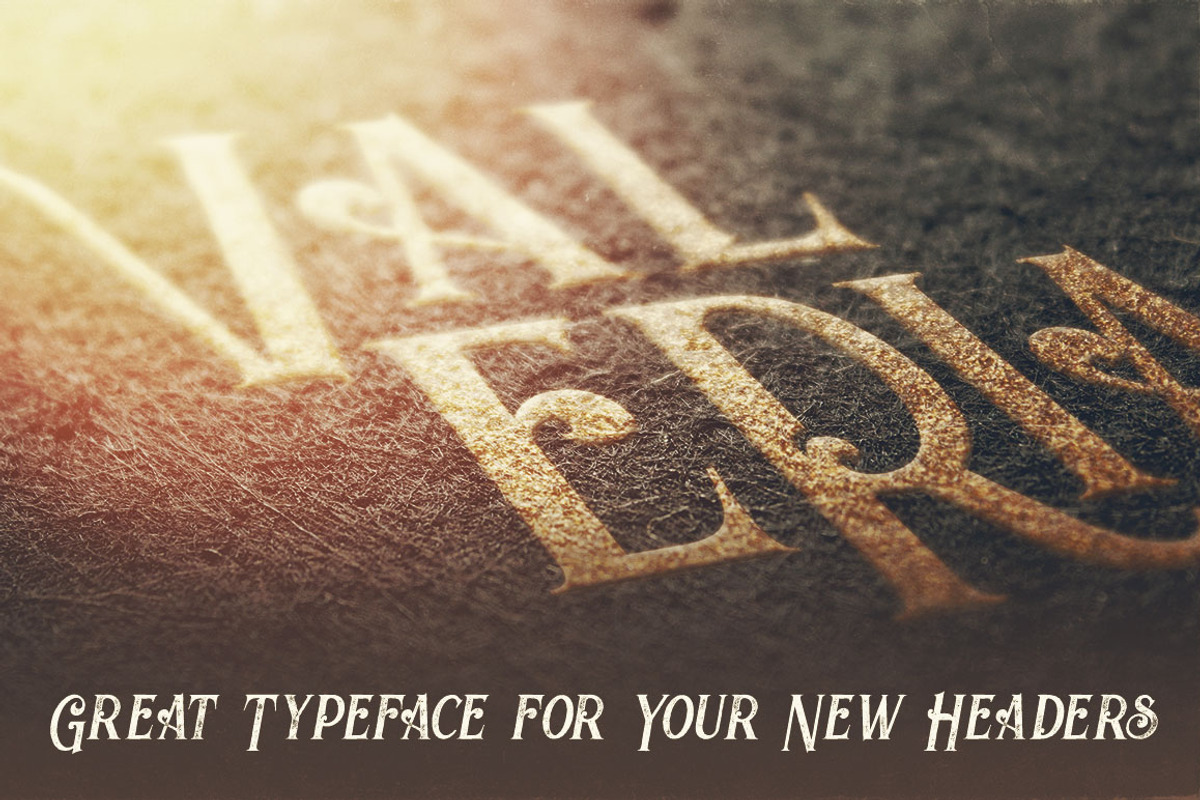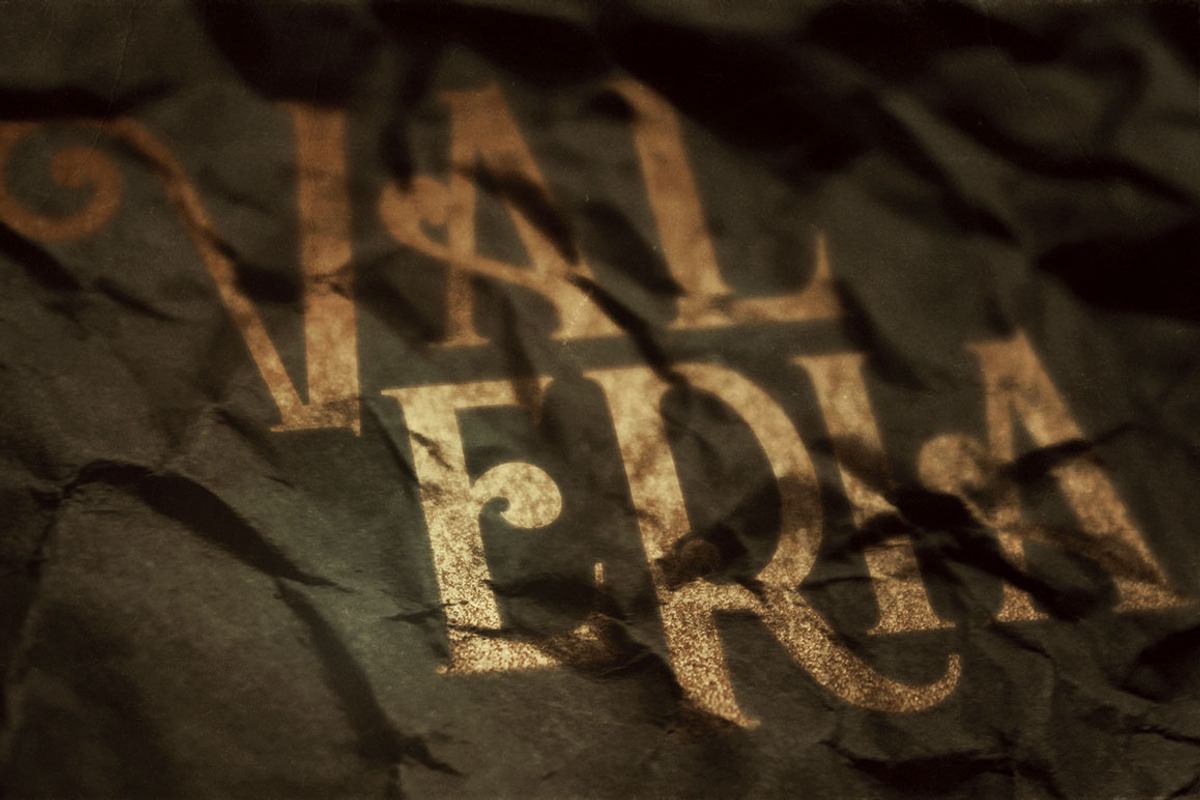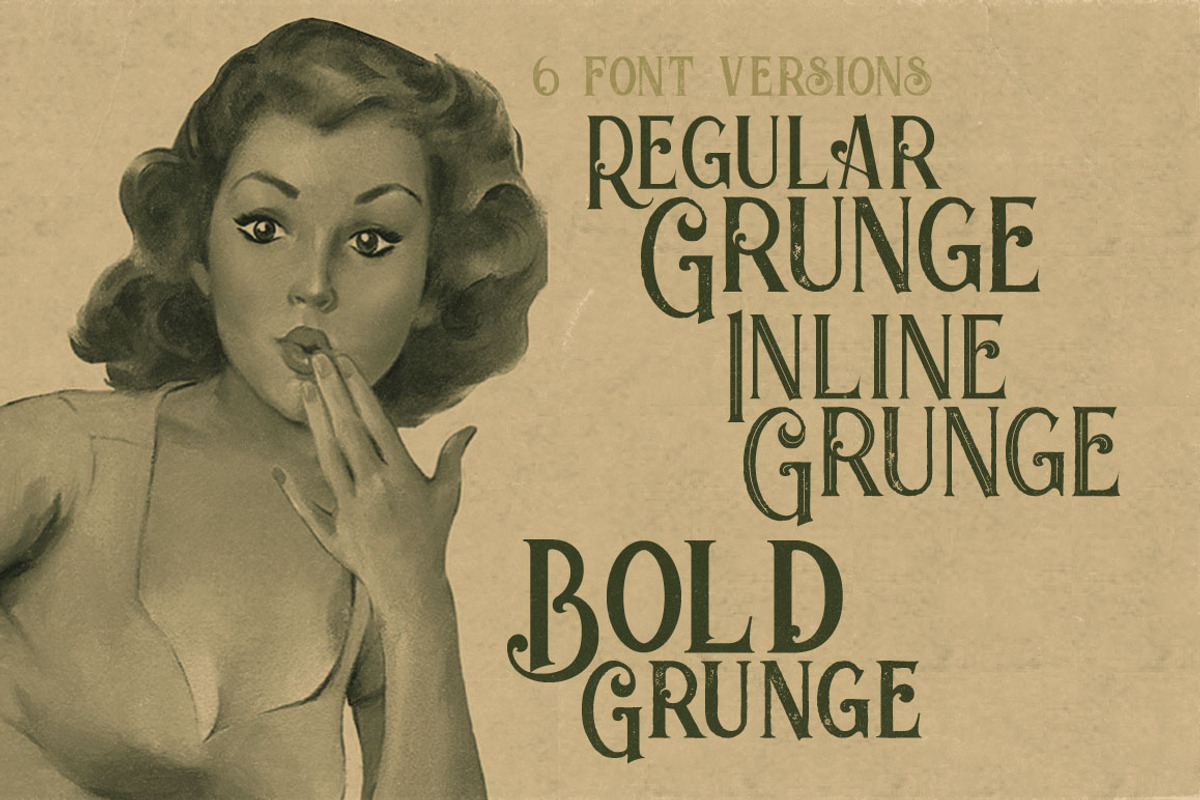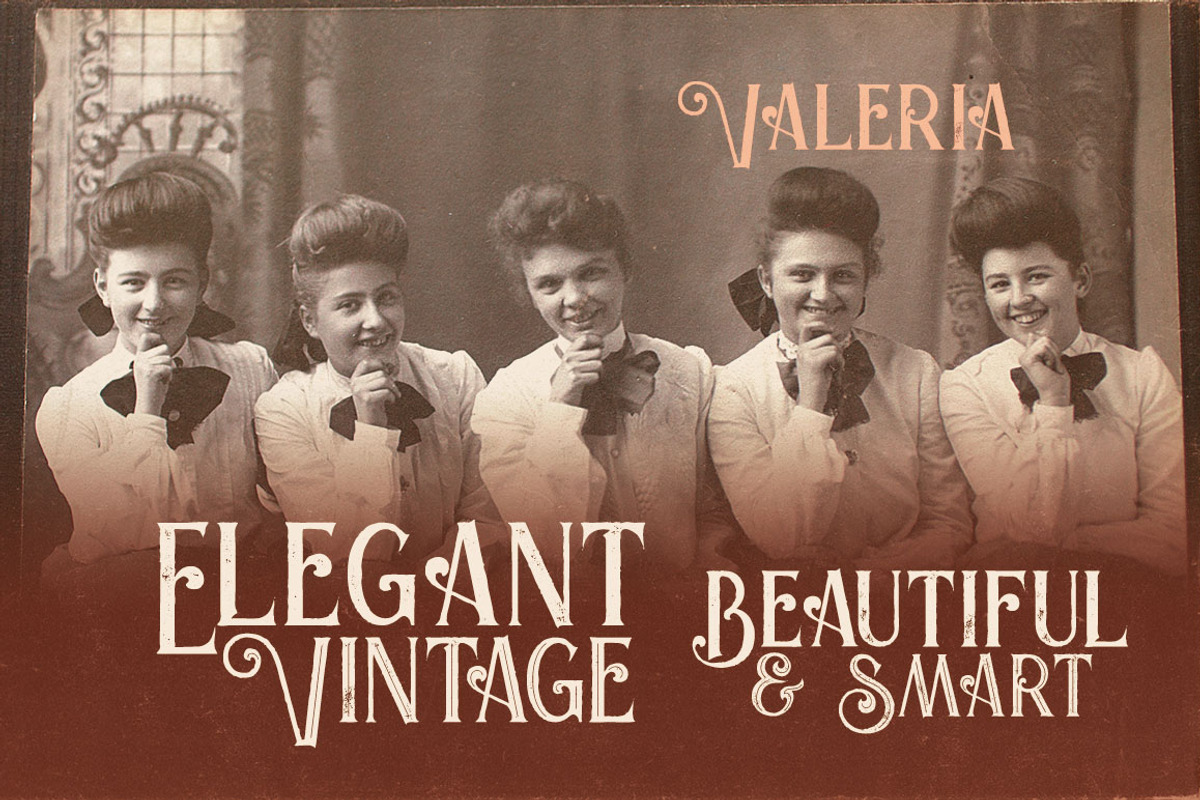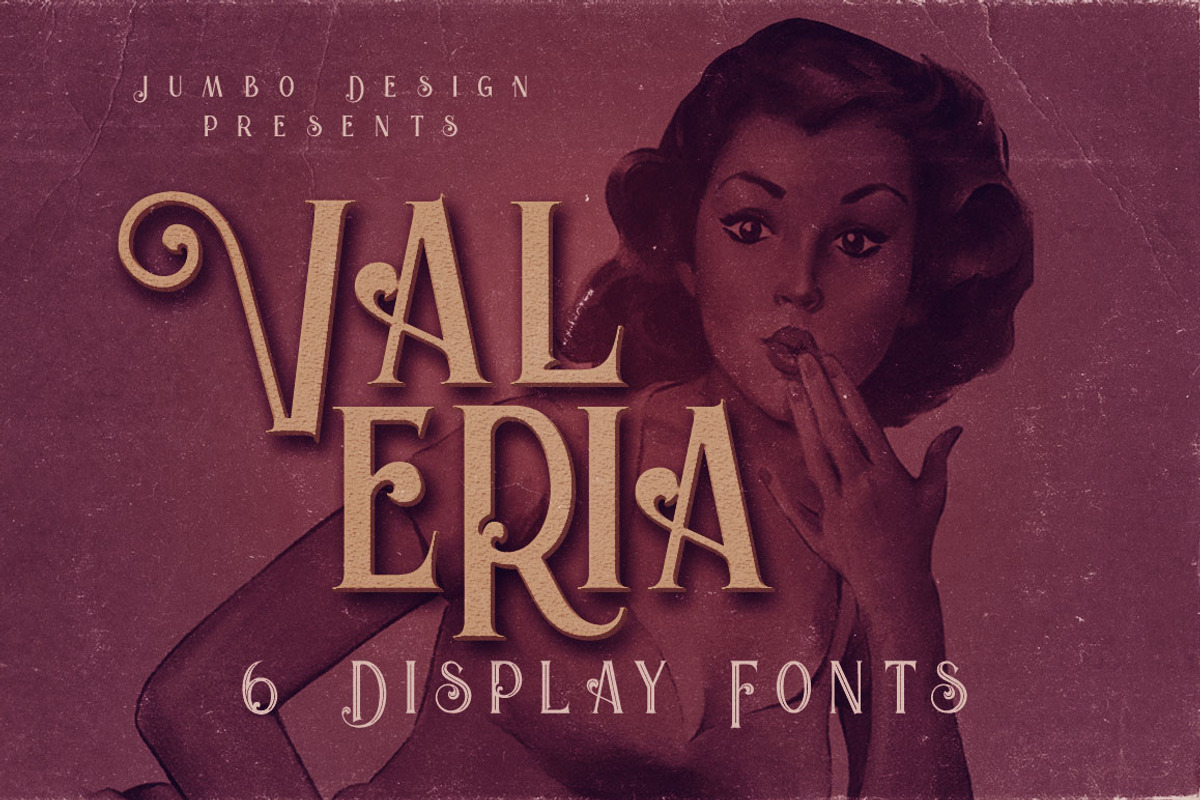
Valeria - Display Font
Valeria - Display Font by JumboDesign is a font selected for branding, posters, packaging, typography.
Why Valeria - Display Font is worth a look
Valeria - Display Font by JumboDesign fits naturally into Branding, posters, packaging, typography.